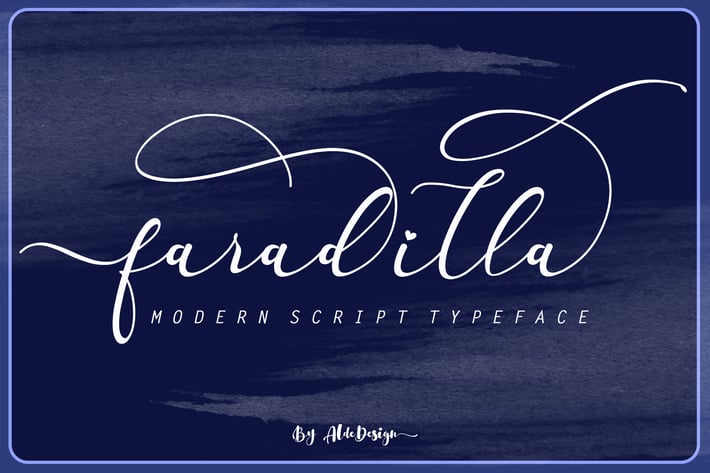
Fradilla - Modern Script Typeface
Faradilla Script is a stylish script typeface font that features a varying baseline, smooth line, modern and with a depth love. For those of you who are need a touch of love and modernity for your designs or branding, it can be used for various purposes such as headings, wedding, invitation, signature, logos, branding, t-shirt, letterhead, signage, lable, news, posters, badges etc.
Faradilla Script - Regular (Complete basic, swashes, titling, SS01, SS02, SS03)
Faradilla Script - SS01
Faradilla Script - SS02
Faradilla Script - SS03
Faradilla Script - Swash (beginning)
Faradilla Script - Titling (ending)
Each Font Has:
Stylish handwritten style
Beautiful Swash (Ending tail)
Beautiful Titling (Beginning tail)
A Lot of Alternates
Special Ligatures